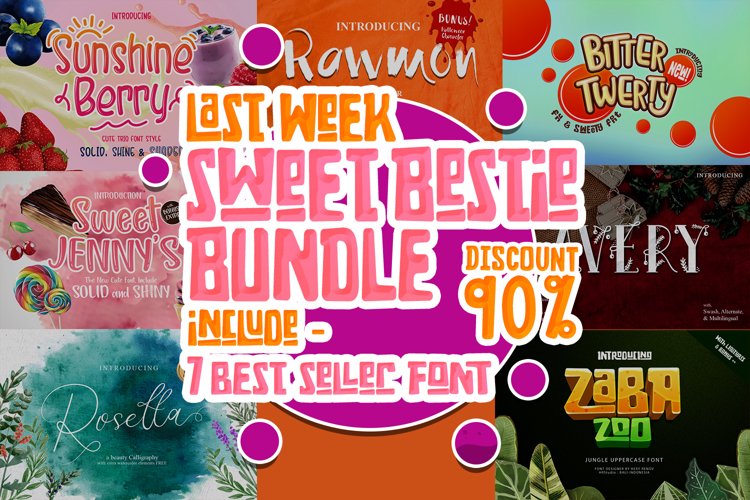
Fantastic Fridaze Bundle - Mega Bundle
We've handpicked a unique selection for this special bundle.
Take a closer look at most of the fonts included below
INCLUDED
1. Sweet Jenny's (https://fontbundles.net/hrstudio/679620-sweet-jenny-s)
2. Sunshine Berry (https://fontbundles.net/hrstudio/728528-sunshine-berry)
3. Rosetta (https://fontbundles.net/hrstudio/744285-rosetta)
4. Rawmon (https://fontbundles.net/hrstudio/753419-rawmon)
5. Avery (https://fontbundles.net/hrstudio/775770-avery-christmas-fairy-font)
6. Bitter Twerty (https://fontbundles.net/hrstudio/794768-bitter-twerty-kids-font-display)
7. Zabazoo (https://fontbundles.net/hrstudio/801918-zaba-zoo-jungle-font-with-text-effect)
8. Chroma (https://fontbundles.net/hydricdesign/822776-chroma-trio-gaming-font)
9. Twig Alleric https://fontbundles.net/hydricdesign/842076-twig-alleric-halloween-twig-font)
10. Wolfa (https://fontbundles.net/hydricdesign/851533-wolfa-werewolf-typeface)
11. Suvillian (https://fontbundles.net/hydricdesign/871216-suvillian-bloody-halloween-typeface)
12. Vultures (https://fontbundles.net/hydricdesign/876670-vultures-mystical-typeface)
13. Bum Bum Bunny (https://fontbundles.net/hydricdesign/887275-bumbumbunny)
14. Lily of Holy (https://fontbundles.net/hydricdesign/901975-lily-of-holy-beauty-script-christmas)
15. Mistaltoe (https://fontbundles.net/hydricdesign/913451-mistaltoe-magical-christmas-font)
16. Dellancy (https://fontbundles.net/hydricdesign/922895-dellancy-beauty-elegant-calligraphy)
17. Hasta Lavista (https://fontbundles.net/hydricdesign/929606-hasta-lavista-playful-sans-serif)
18. Drolly (https://fontbundles.net/hydricdesign/970999-drolly-sweet-and-playful-typeface)
19. The Maggie Nut (https://fontbundles.net/hydricdesign/990366-the-maggie-nuts-playful-vintage-and-retro)
20. Chinchilla (https://fontbundles.net/hydricdesign/946499-chinchilla-dia-de-moertos-script)
This bundle is perfect for something that carries cartoon themes, children's books, funny greeting cards, food package designs, simple logotype, t-shirt design, bottle label, games application name, vintage poster or abstract images, and many more.